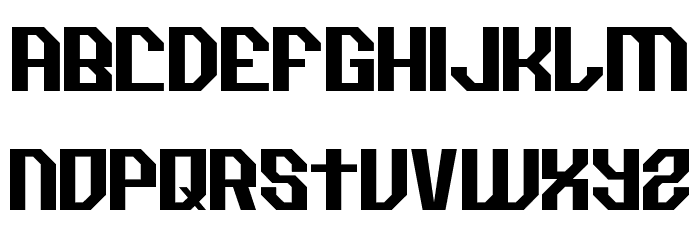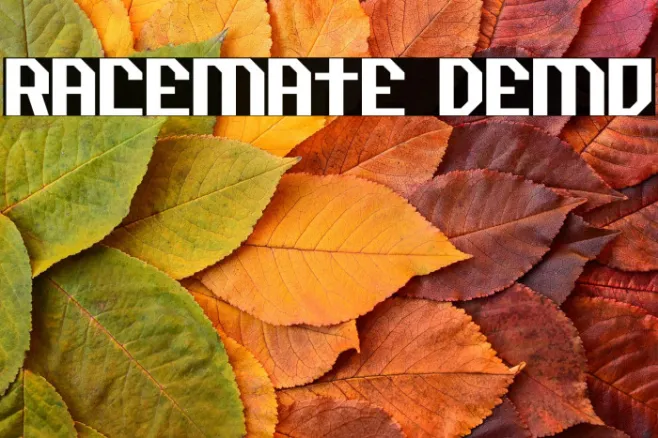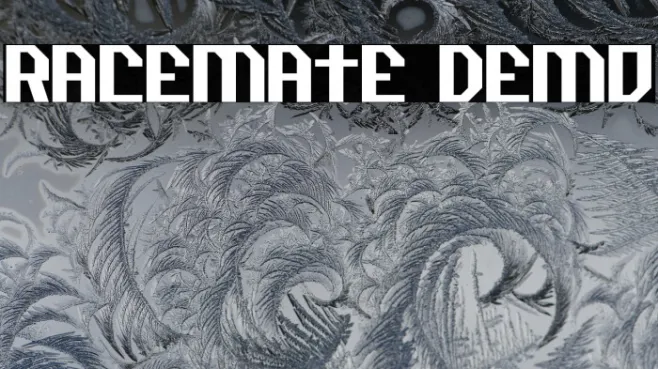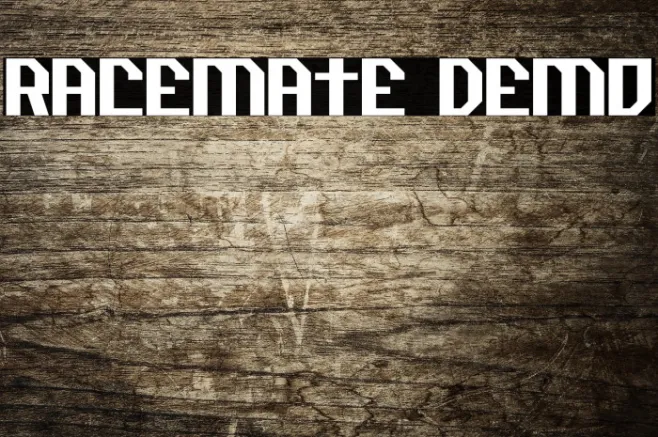
Racemate Demo Font
This font features a bold, geometric design with sharp angles and a strong presence. The uppercase letters are crafted with a blocky, angular style that gives a modern and edgy feel. The lowercase letters maintain the same geometric integrity, ensuring consistency throughout. The numbers and special characters follow suit, providing a cohesive look across all characters. This font is ideal for making a statement, with its striking appearance and high readability.
A bold, geometric font with sharp angles and a modern feel.
- Proposed Projects: Perfect for branding, posters, headlines, and any project needing a bold, modern touch.